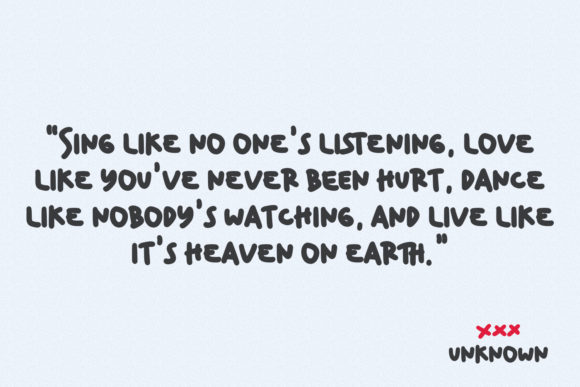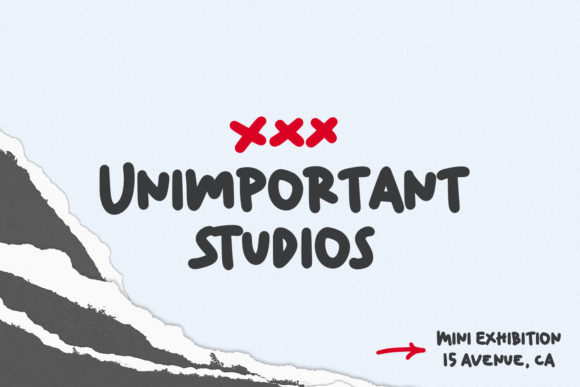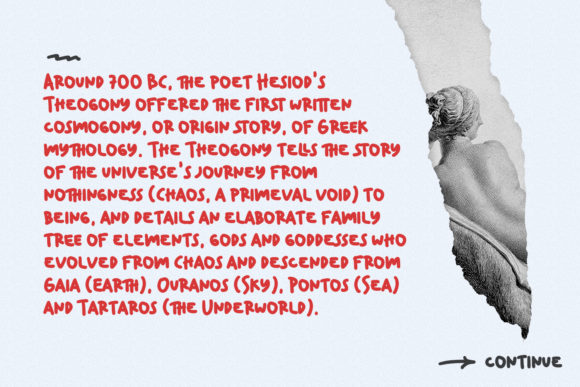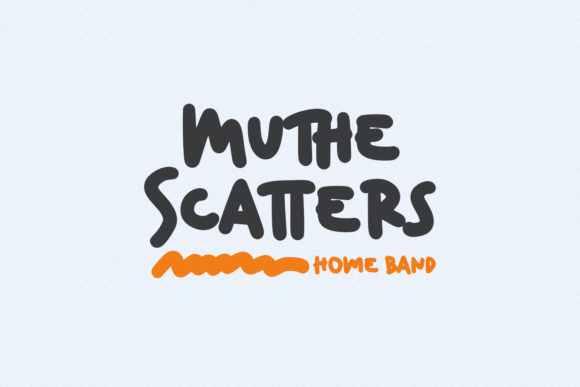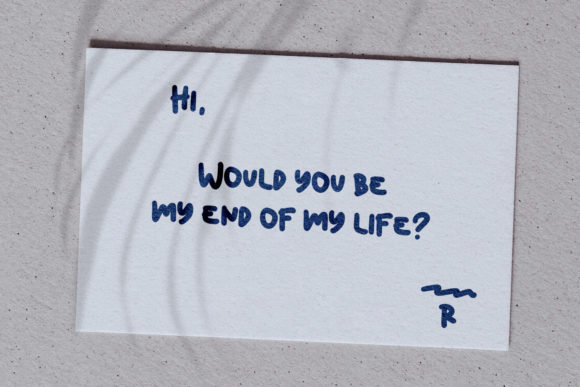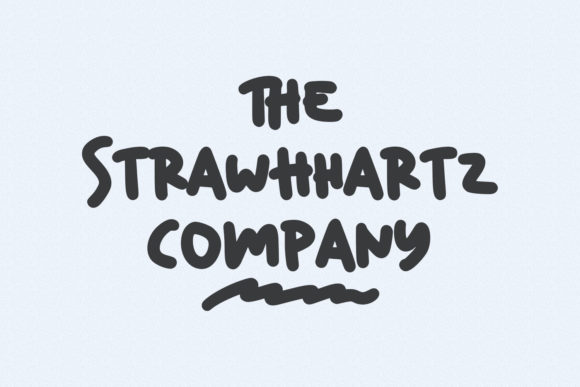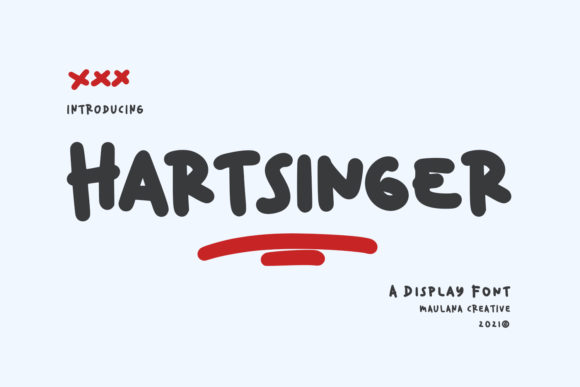
Hartsinger Font: The Friendly and Casual Display Font for Crafty Ideas
Are you a designer or crafter looking for a unique and versatile font to elevate your creative projects? Look no further than the Hartsinger font, a friendly and casual display font that’s perfect for a wide range of applications. In this article, we’ll dive into the features and benefits of the Hartsinger font, and explore how it can add a touch of personality to your designs.
What is Hartsinger Font?
Hartsinger is a display font that’s designed to be both friendly and casual, making it perfect for crafty ideas that require a personal touch. With its original look and feel, this font is sure to appeal to designers and crafters who want to add a unique twist to their projects. Whether you’re working on a letterhead, title, or stationery, Hartsinger font is the perfect choice.
Key Features of Hartsinger Font
So, what makes Hartsinger font so special? Here are some of its key features:
- Unique and original design: Hartsinger font has a one-of-a-kind look that’s sure to stand out from the crowd.
- Friendly and casual feel: This font has a warm and approachable feel that’s perfect for crafty ideas and creative projects.
- Versatile: Hartsinger font can be used for a wide range of applications, from letterheads and titles to stationery and more.
- Easily readable: Despite its unique design, Hartsinger font is still easy to read, making it perfect for both digital and print applications.
How to Use Hartsinger Font
So, how can you use Hartsinger font in your designs? Here are a few ideas to get you started:
- Letterheads and titles: Add a personal touch to your letterheads and titles with Hartsinger font.
- Stationery: Use Hartsinger font to create unique and eye-catching stationery, such as greeting cards and invitations.
- Branding and packaging: Hartsinger font is perfect for branding and packaging projects that require a friendly and casual touch.
- Digital designs: Use Hartsinger font in your digital designs, such as social media graphics and website headers.
Benefits of Using Hartsinger Font
So, why should you choose Hartsinger font for your designs? Here are some of its benefits:
- Stand out from the crowd: With its unique and original design, Hartsinger font is sure to make your designs stand out.
- Add a personal touch: Hartsinger font has a friendly and casual feel that’s perfect for adding a personal touch to your designs.
- Increase creativity: With Hartsinger font, you can let your creativity shine and create unique and eye-catching designs.
In conclusion, Hartsinger font is a friendly and casual display font that’s perfect for crafty ideas and creative projects. With its unique and original design, versatile features, and easy-to-use installation, Hartsinger font is a must-have for designers and crafters. Whether you’re working on a letterhead, title, or stationery, Hartsinger font is sure to add a touch of personality to your designs.